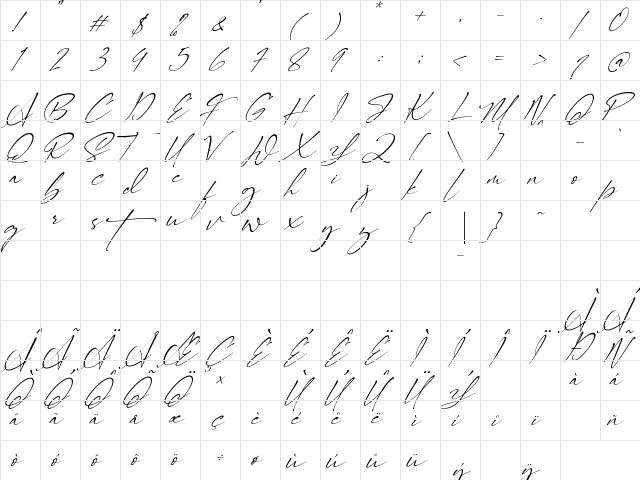
Signatie Regular
| Foundry | BrandSemut |
| Designer | BrandSemut |
Design Context for Signatie Typeface
Signatie is a composed and adaptable typeface that performs quietly and consistently across a wide range of design contexts.